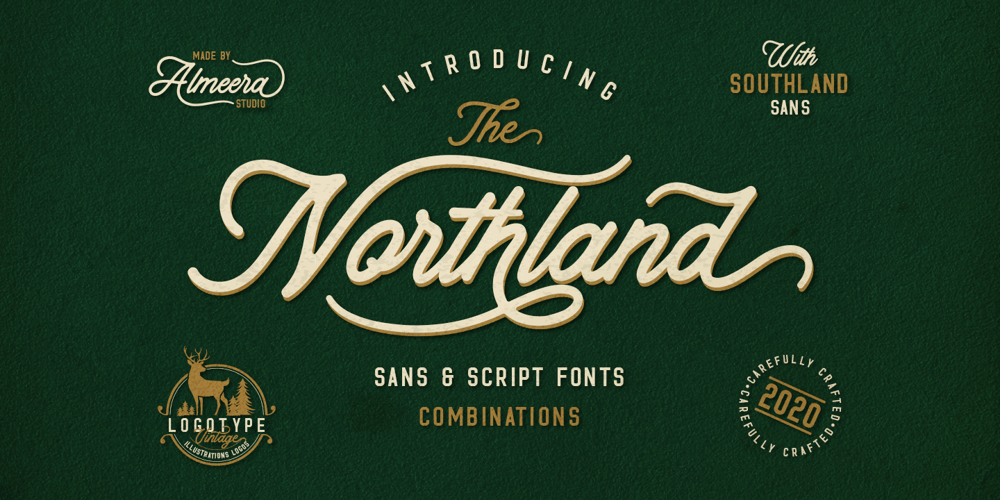
The Northland & Southland Combinations Font Family was designed by Rinto Dwi Nugroho and published by Almeera Studio. The Northland & Southland Combinations contains 2 styles and family package options. Introducing The Northland Combinations. is a pair of Northland script and Southland sans font that perfectly. The classic feel is really perfect for you who needs a typeface for especially logotype, apparel, invitation, branding, packaging, advertising etc. This typeface is comes in uppercase, lowercase, punctuations, symbols & numerals,swashes, 05 stylistic set alternate, ligatures,underlines and also support multilingual and already PUA encoded.to access the underlines you simply press numbers 1-5 followed by an underscore after the last letter. For example: 1_ 2_ 3_ 4_ 5_We highly recommend using a program that supports OpenType features and Glyphs panels like many of Adobe apps and Corel Draw, so you can see and access all Glyph variations.HOW TO ACCESS ALTERNATE CHARACTERSOpen glyphs panel:-In Adobe Photoshop go to Window – glyphs-In Adobe Illustrator go to Type – glyphs